How to Find a Font from an Image: A Comprehensive Guide for Visual Creators on Tophinhanhdep.com
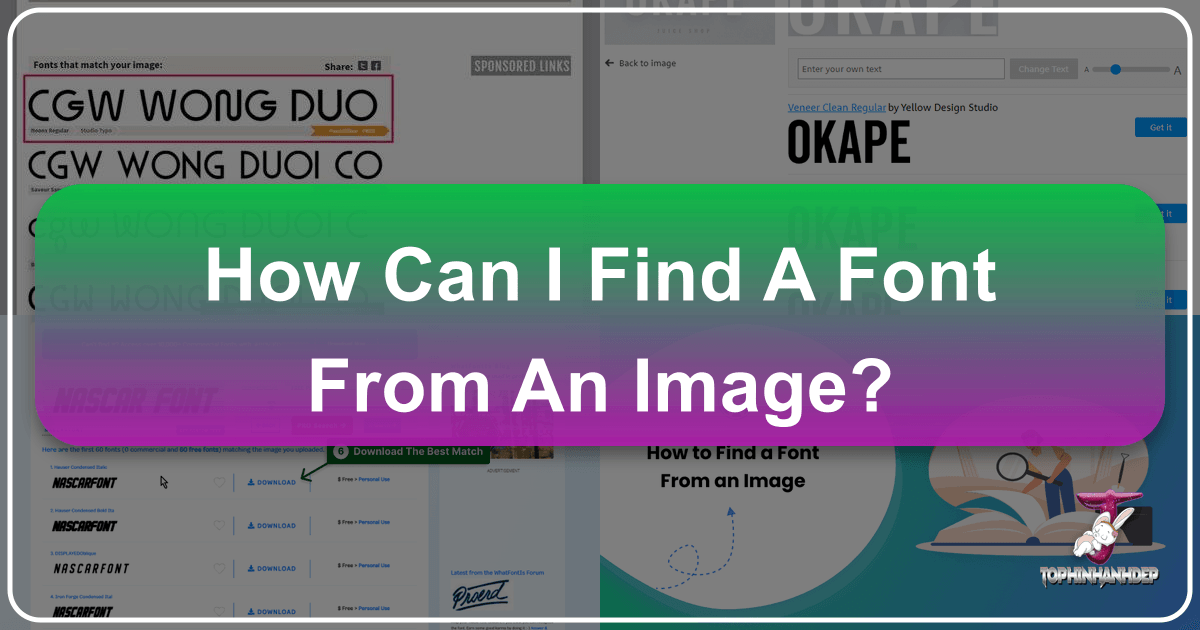
In the dynamic world of visual content creation, where images, photography, and graphic design reign supreme, the smallest details can make the biggest impact. One such detail, often overlooked yet profoundly powerful, is typography. Imagine scrolling through the breathtaking collection of wallpapers and aesthetic backgrounds on Tophinhanhdep.com, or admiring a stunning piece of digital art, when a particular font catches your eye. It’s elegant, modern, playful, or deeply emotional – precisely the typeface you envision for your next project, be it a personalized nature-inspired poster, a compelling abstract graphic, or the text overlay for a high-resolution stock photo. The only problem? You have the image, but you don’t have the font name.
The quest to identify a font from an image is a common challenge for designers, marketers, content creators, and even casual enthusiasts looking to enhance their personal projects. Fortunately, the evolution of digital tools and artificial intelligence has transformed this once arduous task into a surprisingly accessible endeavor. This comprehensive guide, tailored for the discerning user of Tophinhanhdep.com, will explore various methods and handy tools that can help you pinpoint that elusive typeface. We’ll delve into everything from desktop software solutions and sophisticated online AI font finders to leveraging community expertise. Beyond just identifying fonts, we’ll also connect this crucial skill to the broader spectrum of Tophinhanhdep.com’s offerings, demonstrating how mastering font identification can elevate your images, photography, visual design projects, and inspiration collections. By the end of this article, you’ll be equipped not just to find fonts, but to understand their profound role in crafting compelling visual narratives.
Understanding the Essence of Typography in Visuals
Before diving into the “how-to,” it’s vital to appreciate the “why.” Typography is far more than just choosing pretty letters; it’s a fundamental element of visual communication and design. On a platform like Tophinhanhdep.com, which thrives on visual appeal, understanding the impact of fonts is paramount for anyone engaging with images, photography, and graphic design.
Why Fonts Matter: The Silent Language of Design
Fonts possess an incredible ability to convey mood, tone, and personality without a single word being read. This “silent language” is crucial for various applications, especially those found within Tophinhanhdep.com’s diverse categories:
- Emotional Impact (Sad/Emotional, Aesthetic): A delicate script font might evoke feelings of romance or nostalgia, perfectly complementing a sad or emotional image, or enhancing an aesthetic background. A bold, blocky sans-serif, on the other hand, communicates strength and modernity, ideal for impactful statements or abstract art pieces. The contours, weight, and spacing of a typeface subtly influence how a viewer perceives the message and the underlying image. Identifying the font used in a powerful emotional photograph allows you to replicate that sentiment in your own text overlays, maintaining stylistic consistency.
- Brand Identity (Visual Design, Graphic Design): For any individual or business creating content for Tophinhanhdep.com, consistent typography is a cornerstone of brand identity. A specific font can become instantly recognizable, linking all your visual assets – from the text on a high-resolution stock photo to a graphic design element in a presentation. Identifying and consistently using specific fonts across your work helps build a cohesive and professional visual presence, reinforcing your brand’s unique voice in a competitive digital landscape.
- Readability & Hierarchy (Digital Art, Photo Manipulation): Beyond aesthetics, functionality is key. A beautiful font is useless if it’s illegible. The choice of typeface directly impacts how easily text can be read, especially on varied backgrounds like nature photography or busy abstract patterns. Typography also establishes visual hierarchy, guiding the viewer’s eye to the most important information. Bold headlines in one font, subheadings in another, and body text in a third can effectively organize content within digital art or photo manipulations, ensuring clarity and impact. Identifying a clear, legible font from an image can help you maintain high standards of communication in your designs.
- Complementing Imagery (Wallpapers, Nature, Abstract, Beautiful Photography): Text should never compete with or detract from an image; instead, it should enhance it. A carefully chosen font can seamlessly integrate with a stunning landscape wallpaper, an intricate abstract design, or a piece of beautiful photography, becoming an integral part of the overall composition. For instance, a rustic serif might perfectly suit a nature background, while a sleek sans-serif would be more at home on a minimalist abstract piece. The ability to identify the fonts used in inspiring visuals allows you to select typefaces that harmonize with your chosen images, ensuring a cohesive and visually pleasing outcome.
The Anatomy of a Typeface: Understanding the Details
As highlighted by typography experts, understanding the fundamental anatomy of a typeface can significantly aid in font identification, especially when automated tools provide close but not exact matches. Paying attention to subtle details helps you discern one font from another and appreciate the nuances that make a typeface unique:
- Serifs: Small decorative strokes extending from the ends of main strokes (e.g., Times New Roman).
- Sans-serifs: Lacking serifs (e.g., Arial, Helvetica).
- Terminals: The ends of strokes that don’t have serifs.
- Bowls: The enclosed oval or round parts of letters (e.g., the ‘o’ or the rounded part of ’d’, ‘b’).
- Counters: The enclosed or partially enclosed negative space within letters (e.g., the space inside ‘o’, ‘A’, ‘P’).
- Loops: The enclosed or partially enclosed counter in a double-story ‘g’.
- X-height: The height of lowercase letters without ascenders or descenders (like ‘x’, ‘a’, ‘c’).
- Ascenders/Descenders: Parts of letters that extend above or below the x-height (e.g., ‘h’ has an ascender, ‘p’ has a descender).
So, go forth and explore! Experiment with different tools, refine your image preparation techniques, and let the identified fonts inspire your next masterpiece. The world of typography awaits your keen eye and creative spirit.